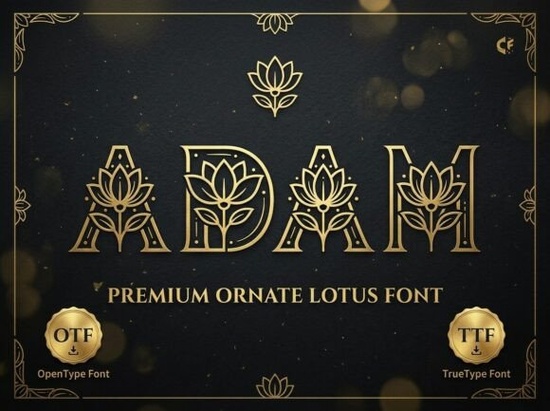
If you're working on a brand identity that calls for grace, stillness, and a touch of the sacred, the Adam Font might be exactly what your project needs. Designed with architectural serifs and delicate lotus motifs woven right into its letterforms, Adam brings a sense of calm sophistication to luxury branding without feeling overly ornate or dated. It’s especially well-suited for wellness spaces, premium product packaging, or any design where spiritual symbolism meets refined aesthetics.
What makes Adam Font stand out from other decorative fonts?
Unlike many display fonts that rely solely on exaggerated shapes or trendy styling, Adam integrates meaningful visual elements: the lotus flower, long associated with purity and rebirth in Eastern traditions, appears subtly within certain characters. Combined with its symmetrical flourishes and gold-etched appearance, it conveys heritage and mindfulness in a way that feels intentional not just decorative.
This balance is why it works so well for yoga studios, high-end spas, organic skincare lines, or boutique hotels aiming for a serene yet upscale vibe. If your audience values authenticity and craftsmanship, Adam helps communicate that visually.
How does Adam compare to similar fonts on Creative Fabrica?
Creative Fabrica offers several decorative fonts that lean into elegance or spirituality, but each has its own personality. For example, Fox Josie blends modern calligraphy with soft curves great for wedding invites or feminine brands but lacks the symbolic depth of Adam. Meanwhile, Secoy Xecore leans more futuristic and geometric, making it better suited for tech or avant-garde fashion.
If you’re drawn to mystical themes, Star Tarot incorporates celestial and esoteric symbols, which pairs beautifully with spiritual content but may feel too niche for mainstream luxury branding. And for handcrafted warmth, Katie offers a friendly, brush-lettered charm ideal for artisanal goods but not quite as formal as Adam.
Where should you (and shouldn’t you) use Adam Font?
Adam shines in short-form applications where visual impact matters most:
- Logos for yoga studios, meditation centers, or holistic wellness brands
- Product labels for premium teas, essential oils, or organic skincare
- Invitations or signage for upscale retreats or boutique hotel events
- Book covers or chapter headers for spiritual or mindfulness content
Avoid using it for body text, small print, or anything requiring quick readability its intricate details lose clarity at smaller sizes. Also, it’s not ideal for corporate, tech, or minimalist brands; its ornate nature demands a context that embraces symbolism and sensory experience.
Is Adam Font beginner-friendly for small business owners or crafters?
Print-on-demand sellers often use it for quote-based mugs, wall art, or journal covers centered around mindfulness themes. Because of its distinctive look, it also helps products stand out in crowded marketplaces without relying on overused script fonts.
Before you download Adam Font, consider this checklist:
- ✅ Do you need a font for headlines, logos, or short phrases not paragraphs?
- ✅ Does your brand or project align with themes like tranquility, luxury, or spiritual wellness?
- ✅ Have you tested how it looks at your intended print or screen size?
- ✅ Are you pairing it with a simple, neutral secondary font for balance?
If you answered yes to most of these, Adam could be a thoughtful, distinctive choice that resonates with your audience and sets your design apart with quiet confidence rather than loud trends.